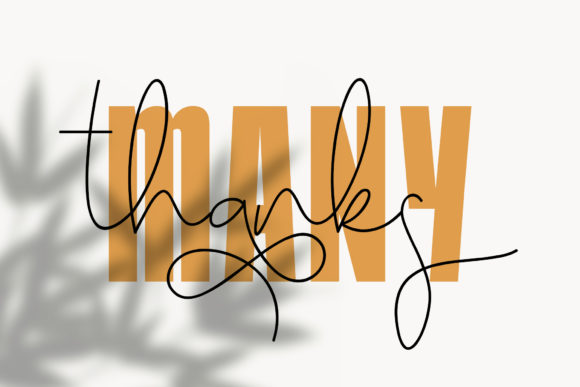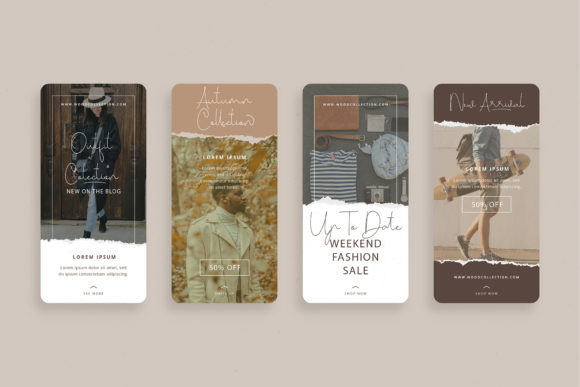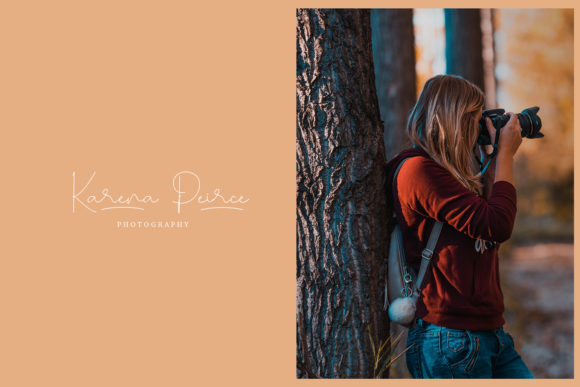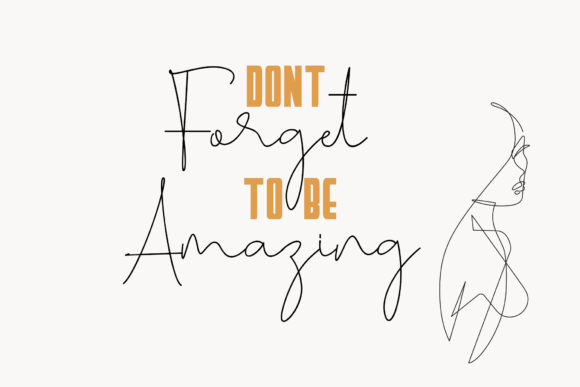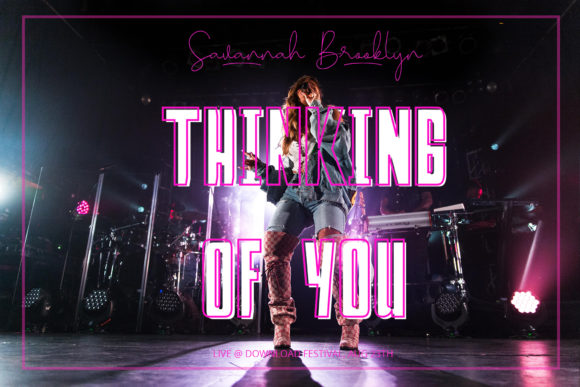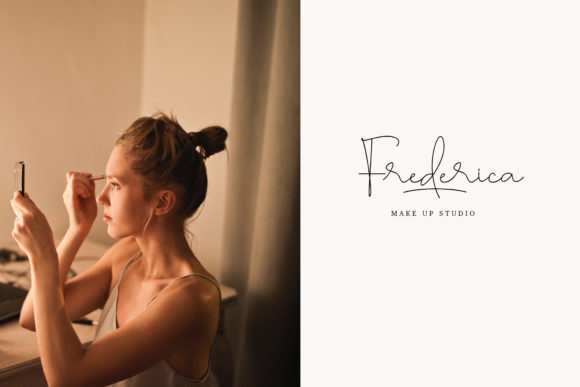
Introduction to Honey Bunney Font
Honey Bunney is a gorgeous font duo, perfectly suited for taking a wide range of design projects to the next level.
Get inspired by its unique charm .
Key Features of Honey Bunney Font
Why Choose Honey Bunney Font?